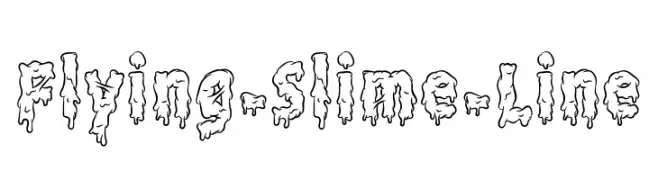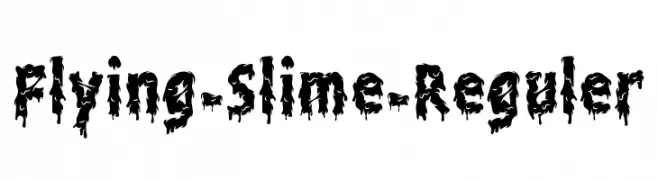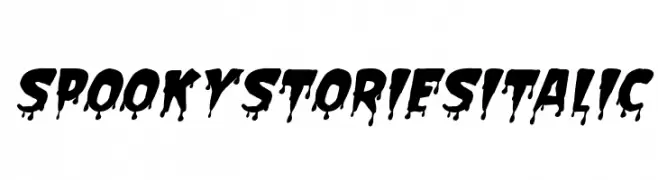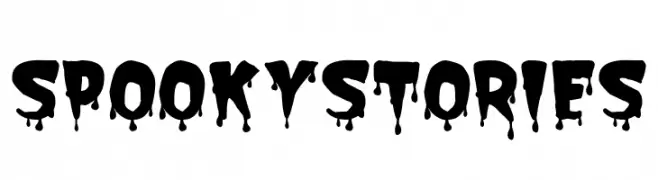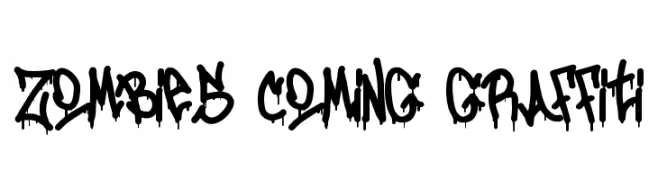
A bold, dripping font perfect for spooky or horror-themed designs.
A dripping, eerie font ideal for horror themes.
A bold, dripping font perfect for horror themes.
A playful, spooky font with a dripping, melting appearance.
A spooky, dripping font perfect for Halloween themes.
A bold, graffiti-style font with a dripping paint effect, perfect for urban-themed designs.
A playful, slime-inspired font with dripping, organic shapes.
A playful, dripping slime font with a hand-drawn, eerie appearance.
A playful, spooky font with dripping, bold characters ideal for Halloween themes.
A bold, spooky font with a dripping effect, ideal for Halloween themes.